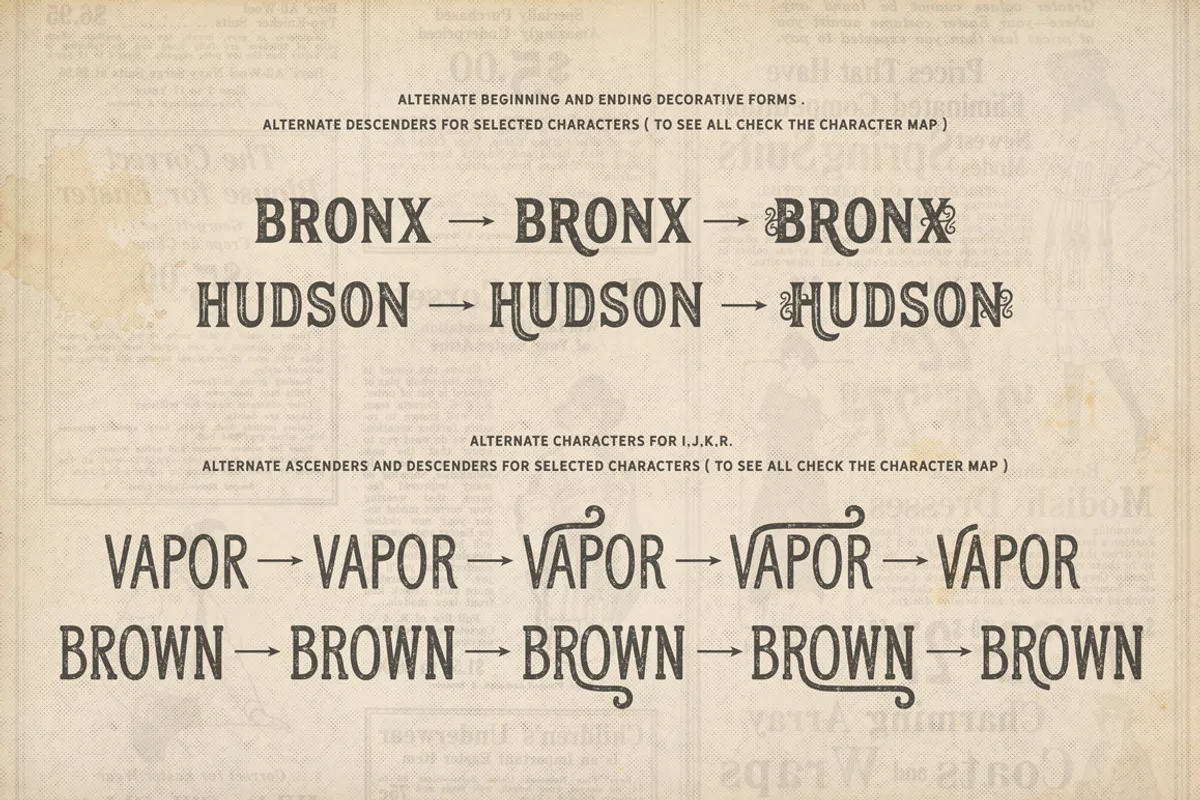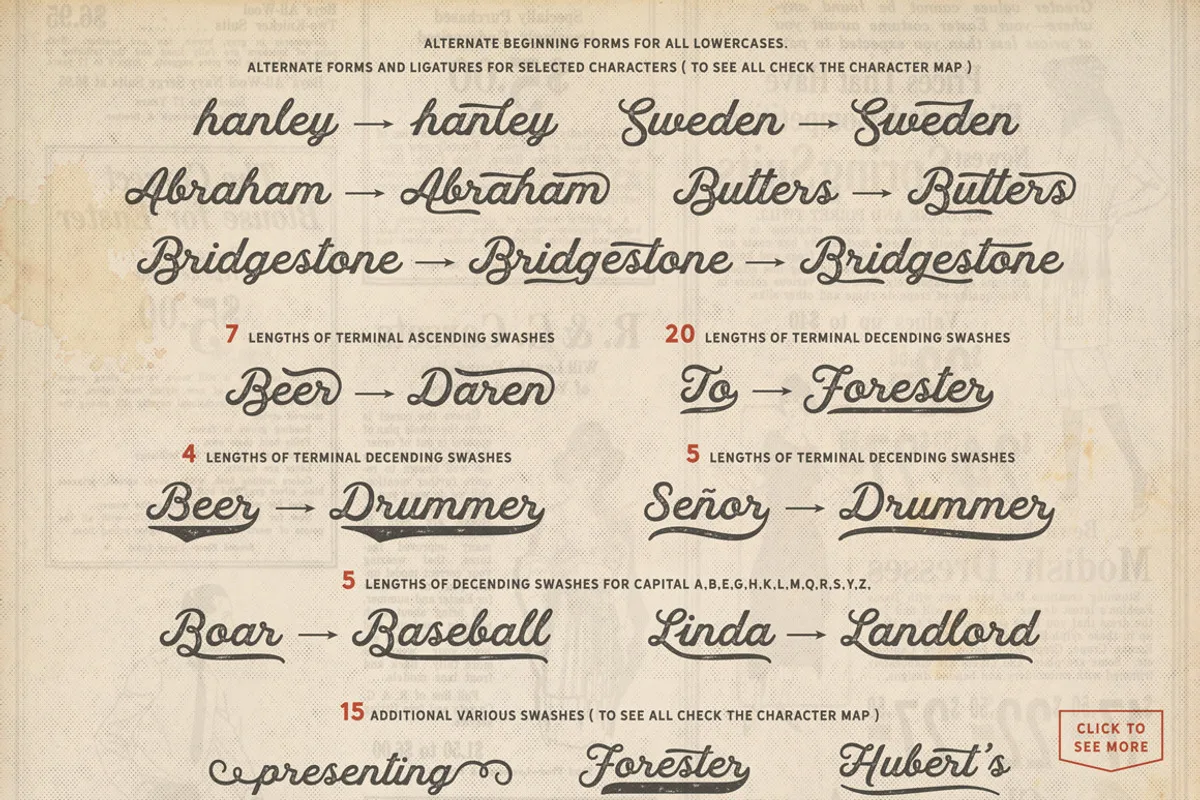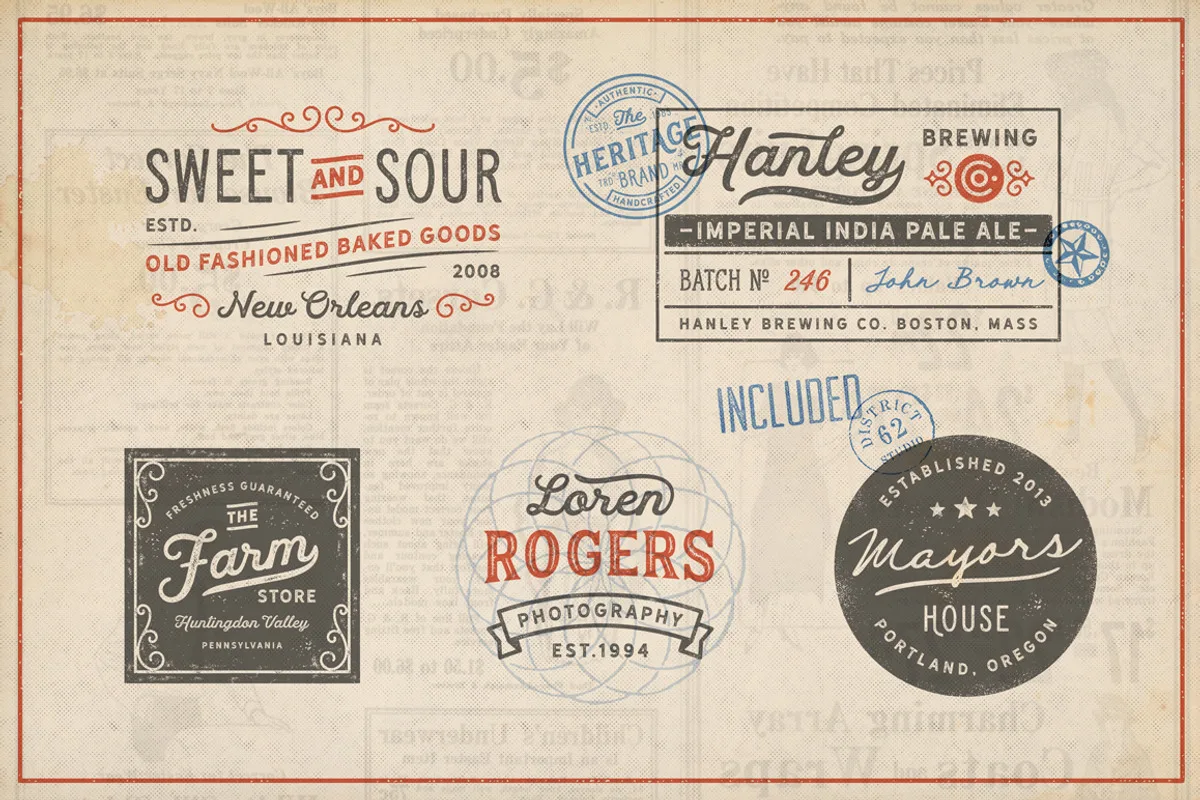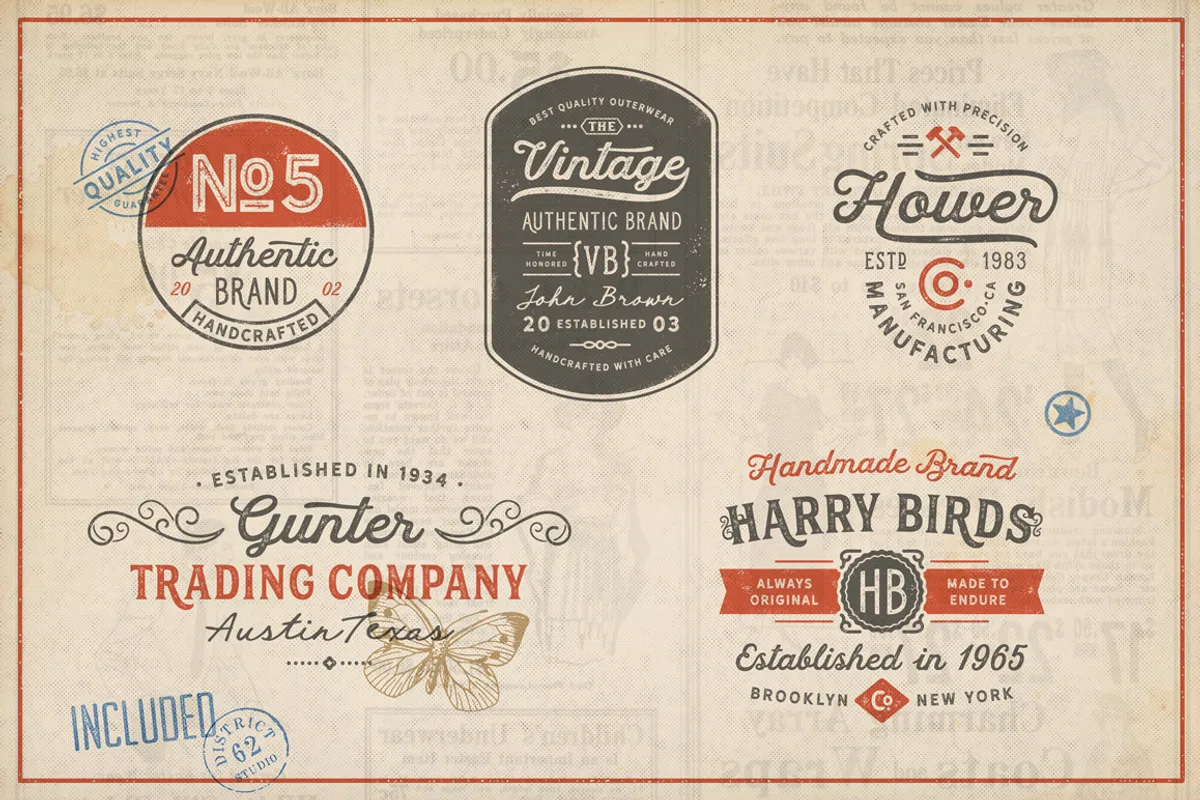
Hanley Rough Font Collection from District 62 is the new letterpress effect version of our popular Hanley Font Collection with a new BONUS Signature font. It consists of 8 fonts and two vector extras files that work extremely well together for an authentic vintage look with a modern vibe. Hanley is extremely versatile, it can look fresh and modern or authentically vintage. We think this group is perfect for logos, restaurant and cafe branding, typographic designs, signage or any project where you need a beautifully textured letterpress typeface.
- Font Name: Hanley Rough
- Designer/Foundry: DISTRICT 62 STUDIO
- Font Category: Serif, Script, Sans Serif
- Style/Tone: Fresh, Modern
- Best for: Logos, restaurant and cafe branding, typographic designs
- Styles: Script, Block Display and Inline, Sans and Inline, Slim Sans and Slim Serif